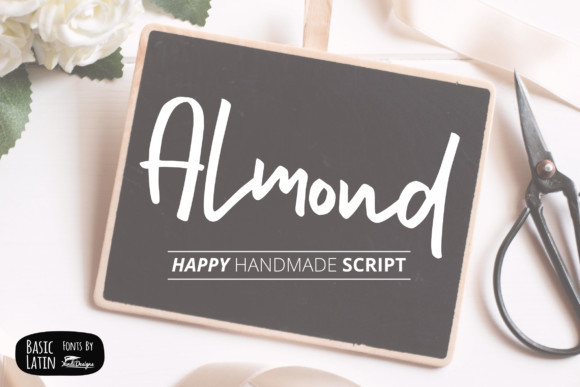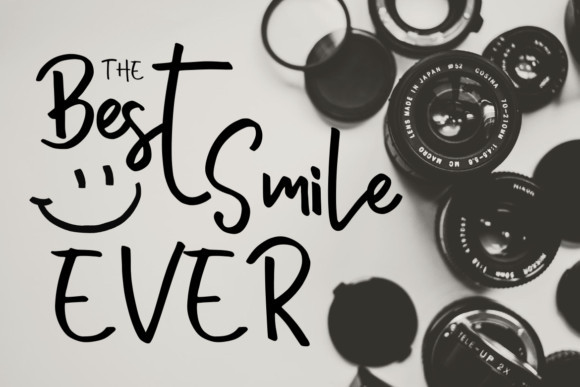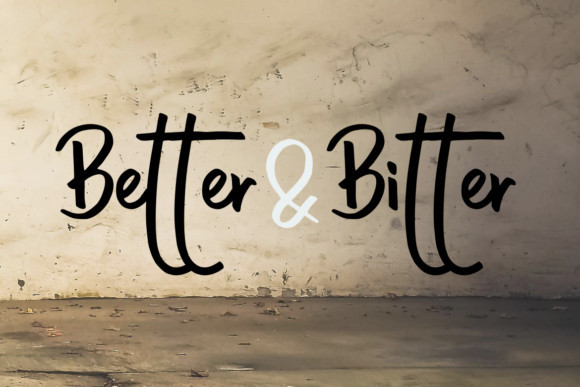
Almond Font
Almond is an stunning handwritten font ready to give your next design the perfect look.
Use it in a wide variety of applications from logos, book covers, product presentations to anything else you can think of.